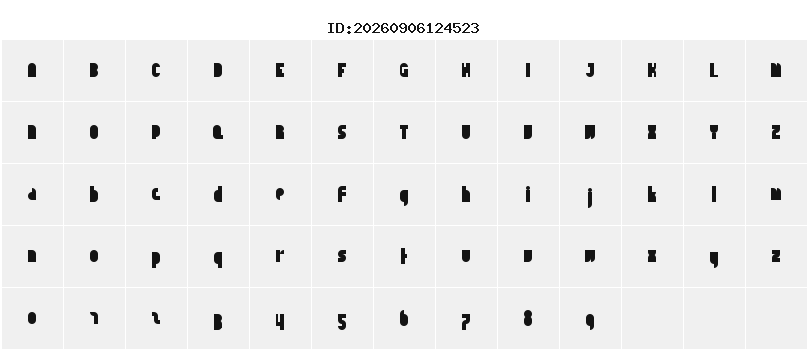
Tapedeck Bold Preview
• Font Name: Tapedeck Bold
• Full Font Name: Tapedeck Bold Regular
• Copyright: Copyright Jamie Place 2013 ‚ÄúTapedeck Bold‚Äù is based on ‚ÄúTapedeck‚Äù by ‚ÄúJamie Place‚Äù (http://fontstruct.com/fontstructors/fontblast)
• Designer: Jamie Place
• Description: ‚ÄúTapedeck Bold‚Äù was built with FontStruct ‚ÄúTapedeck Bold‚Äù is based on ‚ÄúTapedeck‚Äù by ‚ÄúJamie Place‚Äù (http://fontstruct.com/fontstructors/fontblast)
About Tapedeck Bold.ttf
Tapedeck Bold.ttf is a modern, elegant sans-serif font designed for ultimate readability and visual harmony. Perfect for branding, headlines, web design, and print materials.